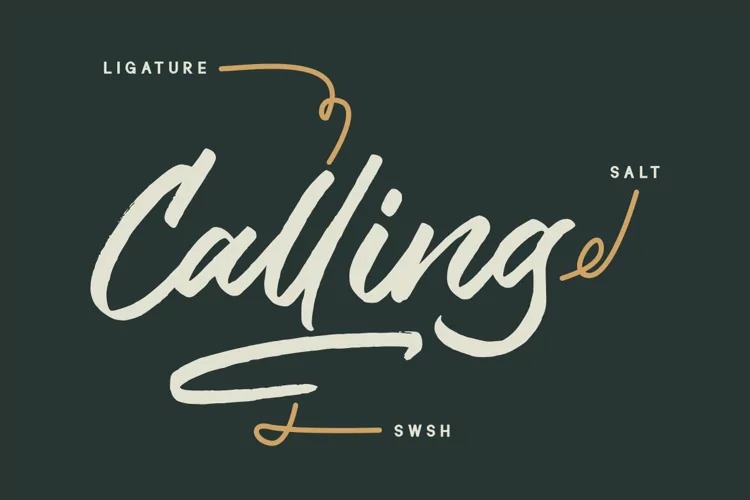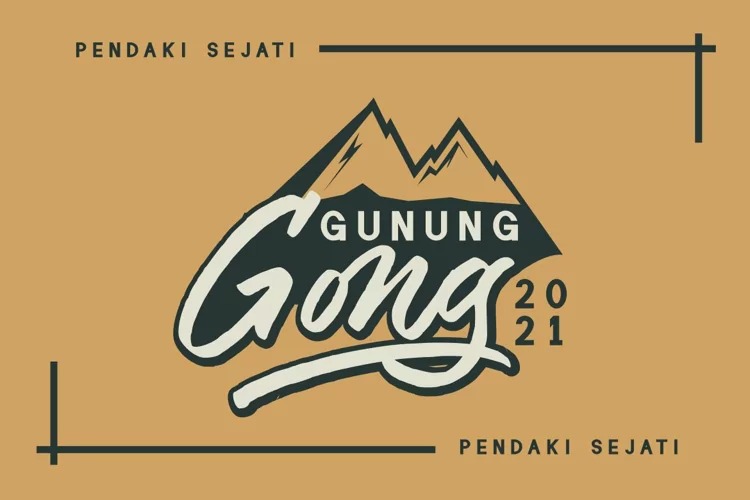
Dakon Font
Dakon Script Font
This is a modern script typeface combined with a rapi so it looks elegant, suitable to support a variety of designs and your business. A great font to use in many ways for your latest project. perfect for logos & branding, photography, invitations, watermarks, advertisements, product designs, stationery, wedding designs, labels, product packaging, special events or anything else that requires bold script content.
Also available for some lowercase characters that have a swash at the end, punctuation marks, numbers, and extensive language support.